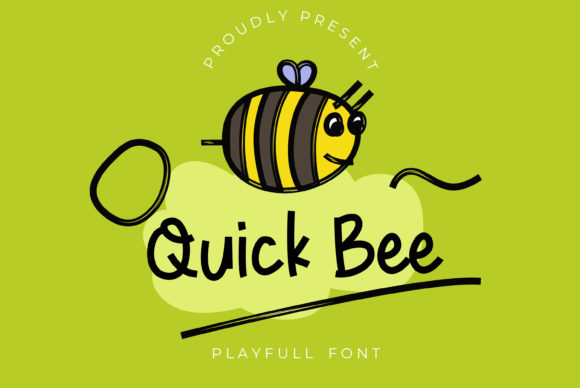
In the realm of typography, where letters speak louder than words, allow us to introduce Quick Bee Font, a display font that dances with charm and personality. Quick Bee isn't just a font; it's an expression of joy, freedom, and boundless creativity. Its chunky, playful letters exude an infectious energy that transforms ordinary designs into extraordinary masterpieces.
Picture this: A children's book comes to life as Quick Bee's whimsical characters dance across the pages, captivating young minds with their playful charm. Lesson plans and presentations take on a new vibrancy, as Quick Bee's bold strokes command attention and make learning an adventure. And let's not forget the world of social media, where Quick Bee's unique style adds a touch of whimsy and delight to your posts, stories, and reels, making your content irresistibly shareable.
With Quick Bee Font, you're not just downloading a font; you're unlocking a world of possibilities. Its playful nature lends itself perfectly to creating T-shirt designs that pop with personality. Imagine your designs adorned with Quick Bee's cheerful letters, spreading joy and laughter wherever they go. Unleash your creativity and design T-shirts that tell stories, evoke emotions, and make a statement.
Quick Bee Font isn't just limited to the digital realm; it transcends the boundaries of the screen and invites you on a tactile journey. Its chunky letters beg to be explored with your fingertips, inviting you to feel the weight and texture of each stroke. Create handmade cards, scrapbook pages, and other paper crafts that come alive with Quick Bee's playful charm. Let your imagination run wild as you craft unique and heartfelt creations that leave a lasting impression.
In a world where conformity often reigns supreme, Quick Bee Font stands as a beacon of individuality. Its unique style challenges the norm and encourages you to embrace your creativity without fear. Let Quick Bee be your muse, your companion on a creative odyssey where anything is possible. Embrace the power of expression and watch as your designs take flight, captivating hearts and igniting imaginations along the way.